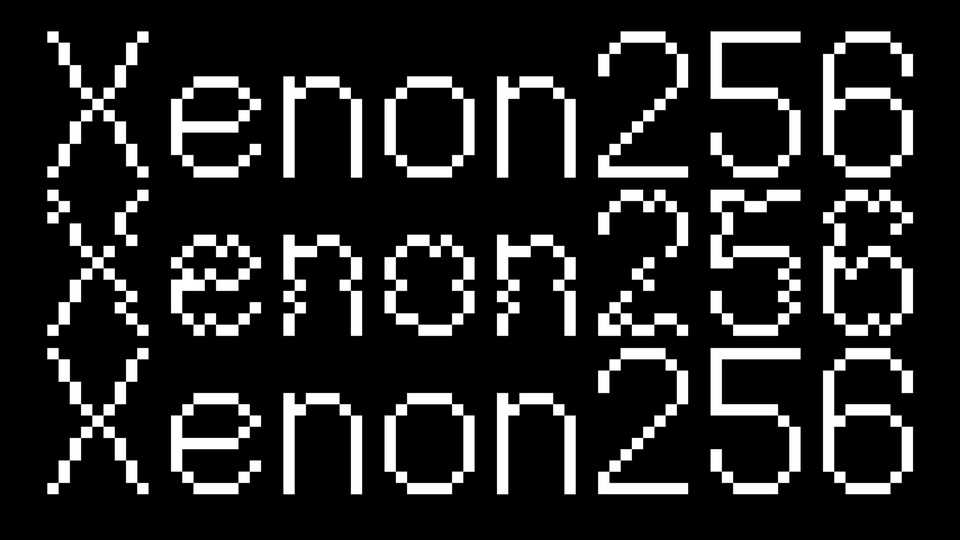
Download Xenon256 font, a pixel grotesk typeface family of two fonts, Regular and Corrupted. Xenon256 font is perfect for games, web, motion graphics etc.
Designer: CYBRNEON